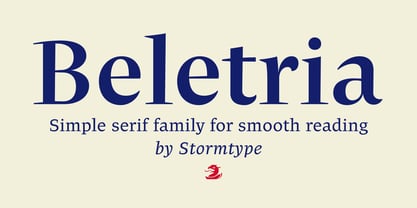
Beletria
by Storm Type Foundry
Beletria Font Family was designed by František Štorm and published by Storm Type Foundry. Beletria contains 26 styles and family package options.
About Beletria Font Family
The goal of Beletria is to be a contemporary looking book typeface for fast reading (frankly, I was already bored of using of good old Baskerville for the volumes I illustrated recently). I needed an inconspicuous typographic element to combine with my pictures. The development of Beletria family took most of 2018 and resulted in 26 styles of classical proportions at 2 optical sizes. It has a large x-height and lively italics. Naturally the usual array of OpenType features is present. Beletria is perfect for electronic publication as well.
About Storm Type Foundry
“I bought my first computer in 1993 and realized that there were no good fonts around," František Štorm says, “so I had to make my own.” He founded the Storm Type Foundry in Prague that same year in the hopes that he would be able to restore the classical values of typography that often times don’t get translated into the digital world. “I started the business when I realized that the fonts I made for myself could be useful for others,” he says. When he began digitizing original Czech typefaces, František teamed up with Otakar Karlas, Jan Solpera and Josef Tyfa, experienced Czech designers.“We are convinced that such teamwork is a guarantee of the permanence of the artistic value of our typefaces.” He made his MyFonts debut with Regent and has released nearly 90 typefaces since, resulting in a collective library that has evolved with the technologies of the last two decades. He started out by drawing alphabets which could be used in book printing, and then proceeded to alphabets for film and photosetting. Now that he is creating typefaces for screens, he focuses on retaining the human touches that have always made his typefaces personable.